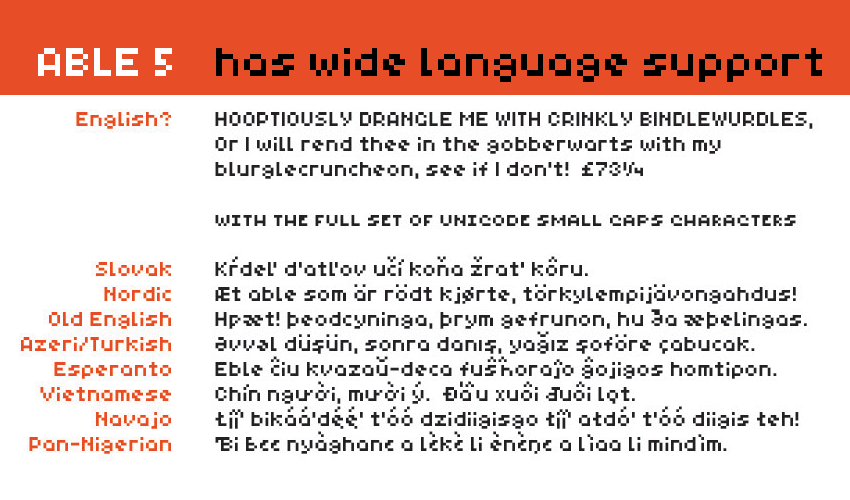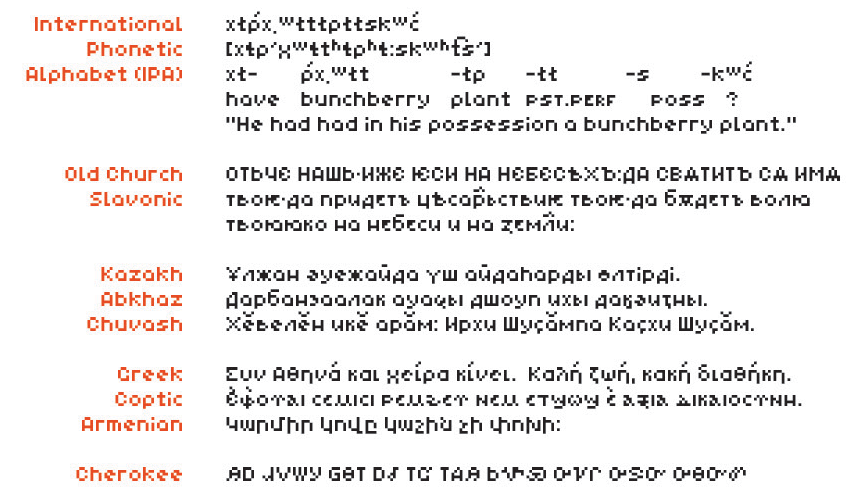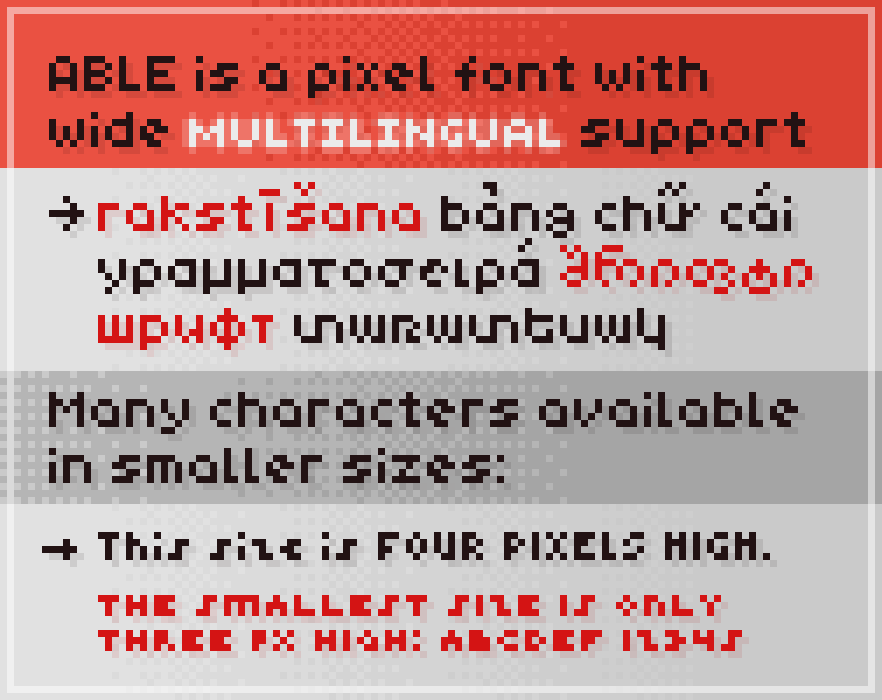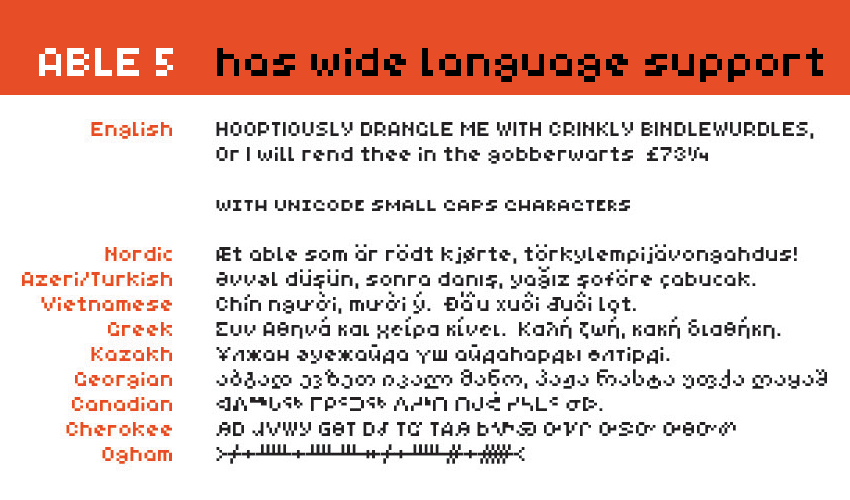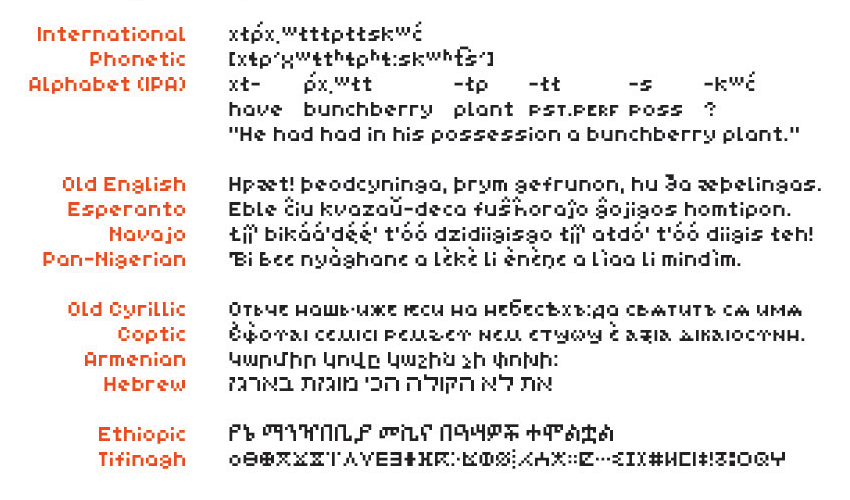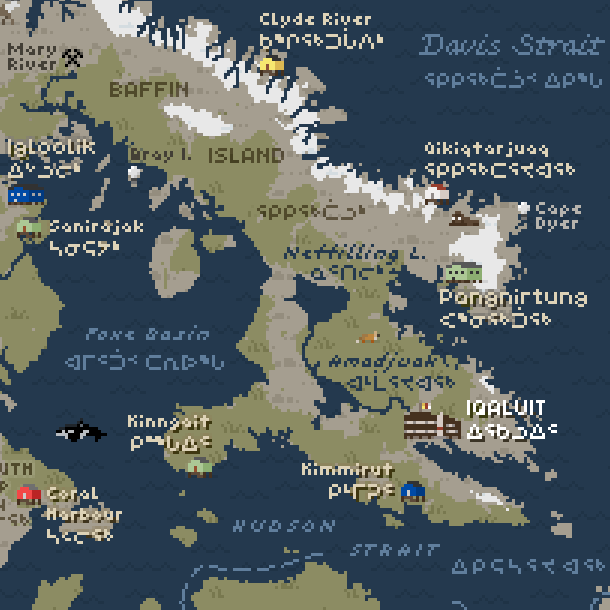
Able font
Ready to make your project multilingual? Able 5 supports hundreds of languages, with a wide range of characters from many alphabets: Roman, Cyrillic, Greek, Armenian, and others. It even supports the International Phonetic Alphabet (IPA)!
Version 2: Able now supports Georgian, Hebrew, Ethiopic, Canadian Syllabics, Tifinagh, and Ogham!
The x-height is only 4px high, with an extra pixel above and below for ascenders and descenders. Many accent marks extend outside of that range.